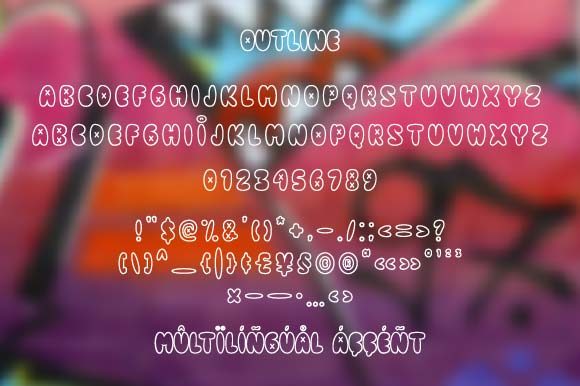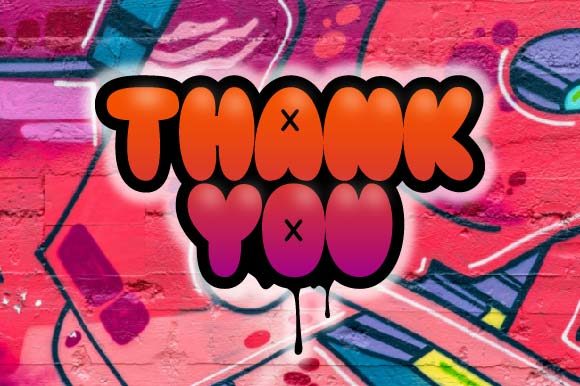
Introduction to Fillings Urban Font
Imagine the thrill of discovering the perfect font to elevate your creative project. The moment when all the design elements come together, and your vision takes shape. For designers, this is a moment of pure joy. And, we’re excited to share with you a font that can make this happen – the Fillings Urban Font.
This graffiti styled, trendy display font is a game-changer for any design project. With its unique, urban feel, it’s perfect for adding a touch of edginess to your designs. Whether you’re working on a letterhead, title, or stationery, Fillings Urban Font is a valuable addition to your design resource library.
Key Features of Fillings Urban Font
- Unique Urban Typography: Fillings Urban Font offers a distinctive and modern urban typography style, perfect for creative projects.
- High-Quality Design: This font is designed with high-quality graphics and can be used for a variety of design purposes, from digital to print media.
- Transparent Background: Fillings Urban Font comes with a transparent background, making it easy to use in any design project.
- High Resolution: The font is available in high resolution, ensuring it looks great on any screen or print media.
- Perfect for Creative Projects: Fillings Urban Font is ideal for designers working on creative projects, such as brochures, posters, and digital designs.
Honest Review: Fillings Urban Font
- ✨ The transparent background makes it incredibly easy to use in different design scenarios.
- ✨ The font is highly customizable, allowing me to experiment with various styles and effects.
- ✨ The design is modern and sleek, perfect for a variety of creative projects, from branding to editorial design.
- ⚠️ The font can be a bit too bold for some designs, so it’s essential to use it judiciously.
- ⚠️ There’s limited support for special characters and accents, which can be a challenge for certain design projects.
Overall, I’m thoroughly impressed with the Fillings Urban Font. It’s a fantastic design resource that’s perfect for anyone looking to elevate their creative projects. While it may have some limitations, the benefits far outweigh the drawbacks. I highly recommend giving it a try!
How to Use Fillings Urban Font
The Fillings Urban Font is a high-quality design resource ideal for creative projects requiring a modern and stylish touch. With its transparent background, this font is perfect for overlaying text on images or using as a standalone element.
Using the Font in Design Applications
You can use the Fillings Urban Font in a variety of design applications, including:
Getting the Most Out of the Font
To get the most out of the Fillings Urban Font, try combining it with images or other design elements to create a unique and eye-catching visual effect. Experiment with different font sizes, colors, and arrangements to achieve the desired look.
The Fillings Urban Font is ideal for a wide range of creative projects, including:
- Social media graphics and advertisements